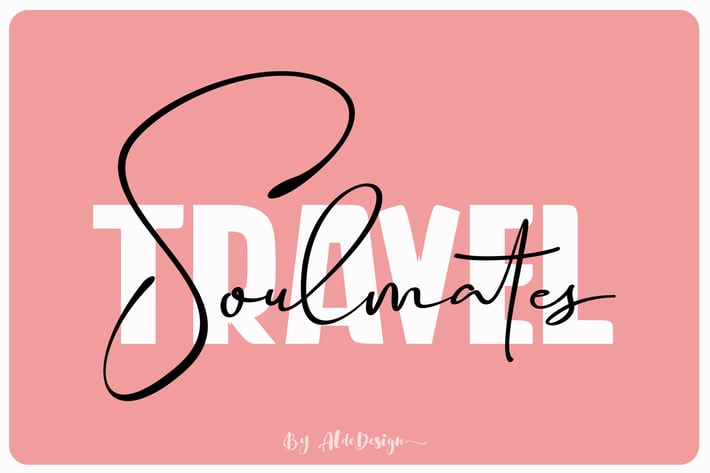
Travel Soulmates // Font Duo
Travel Soulmates-Font Duo
Travel Soulmates-Font Duo is a stylish signature font combined with bold sans that is inspired by modern signature font for photography and strong character of bold sans.
Itβs easy to use, to create a stunning watermark for your photos, invitations, branding.
It also works great as a business signature or on other branding materials.
Each font has:
Stylish handwritten style
Special Ligatures